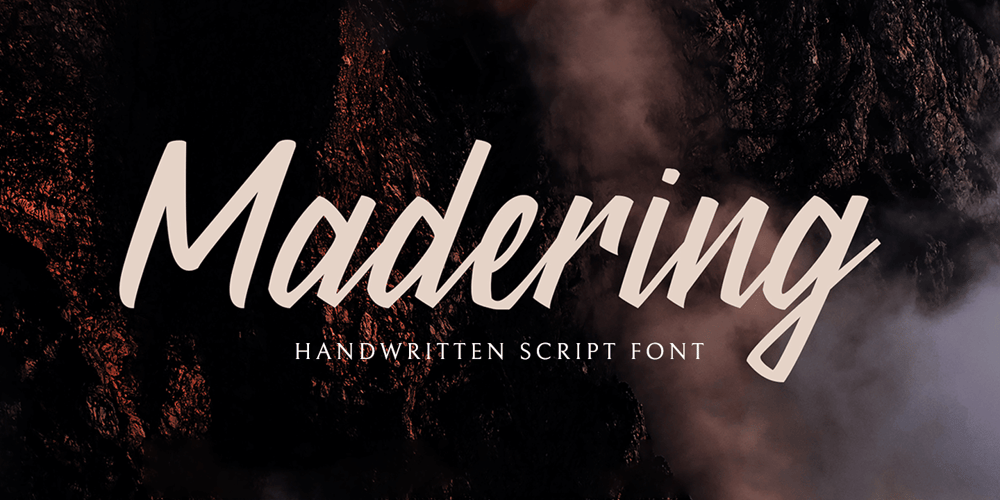
Madering Font Family was designed by Virgiawan Listanto and published by Stringlabs Creative Studio. Madering contains 1 styles and family package options. Madering is an elegant and classic font. It’s perfect for logos, packaging, branding, invitations and much more! The Madering font is a great choice to increase the prominence in your project. Although the typography is traditional, the basic elements are great.